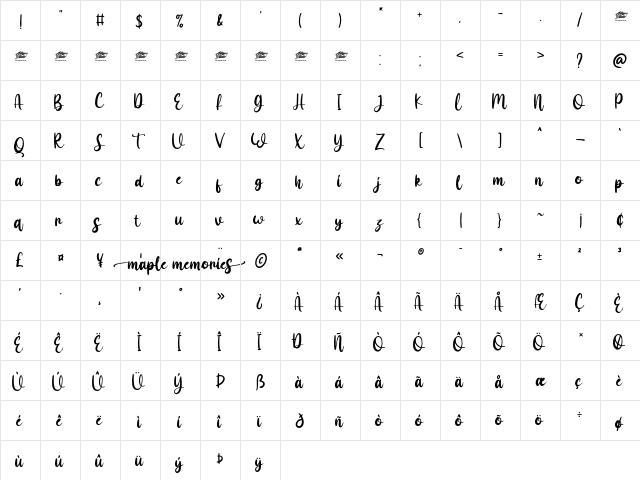
Maple Memories - Personal Use Regular
| Foundry | Attype Studio |
| Designer | Fadli Ramadhan Iskandar |
Design Context for Maple Memories - Personal Use Typeface
Maple Memories - Personal Use is a composed and adaptable typeface that performs quietly and consistently across a wide range of design contexts.